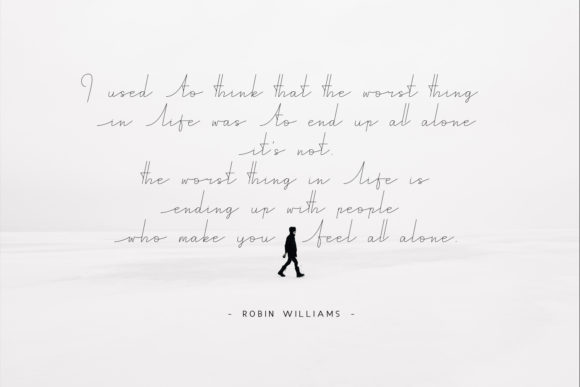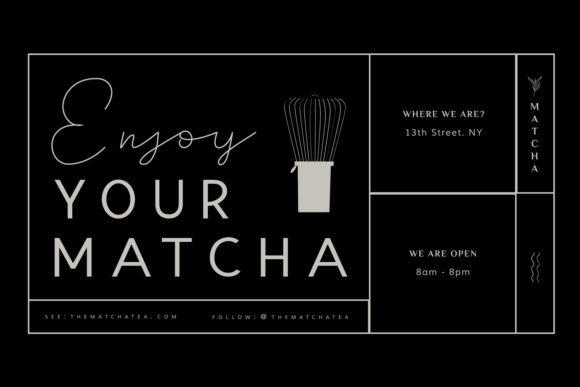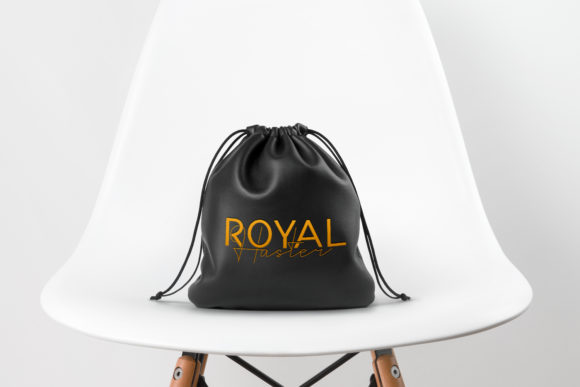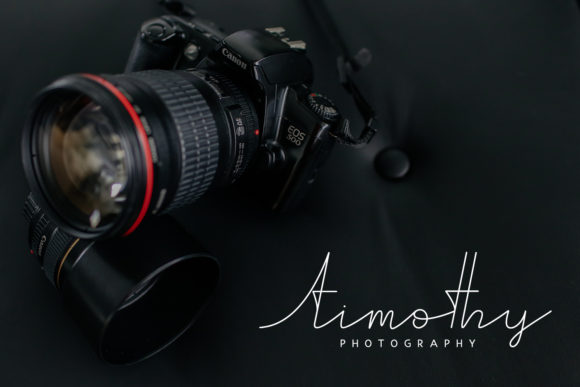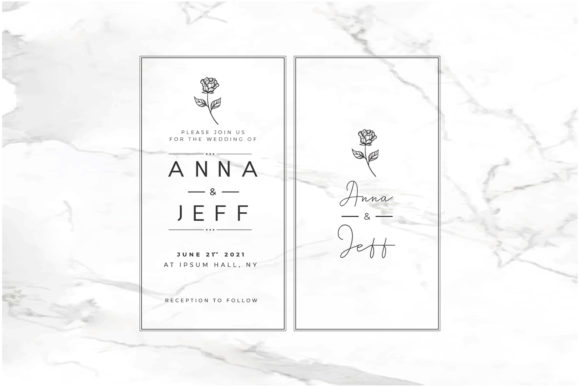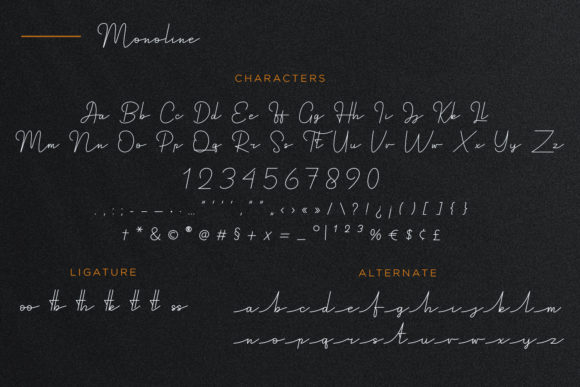
Introduction to Royal Haster Font
Royal Haster is an equally fun and elegant font duo that brings together to stunning fonts.
While the script feels beautifully fancy, the sans serif version will add a luxurious vibe to your next design Combine them easily to achieve stunning results.
Key Features of Royal Haster Font